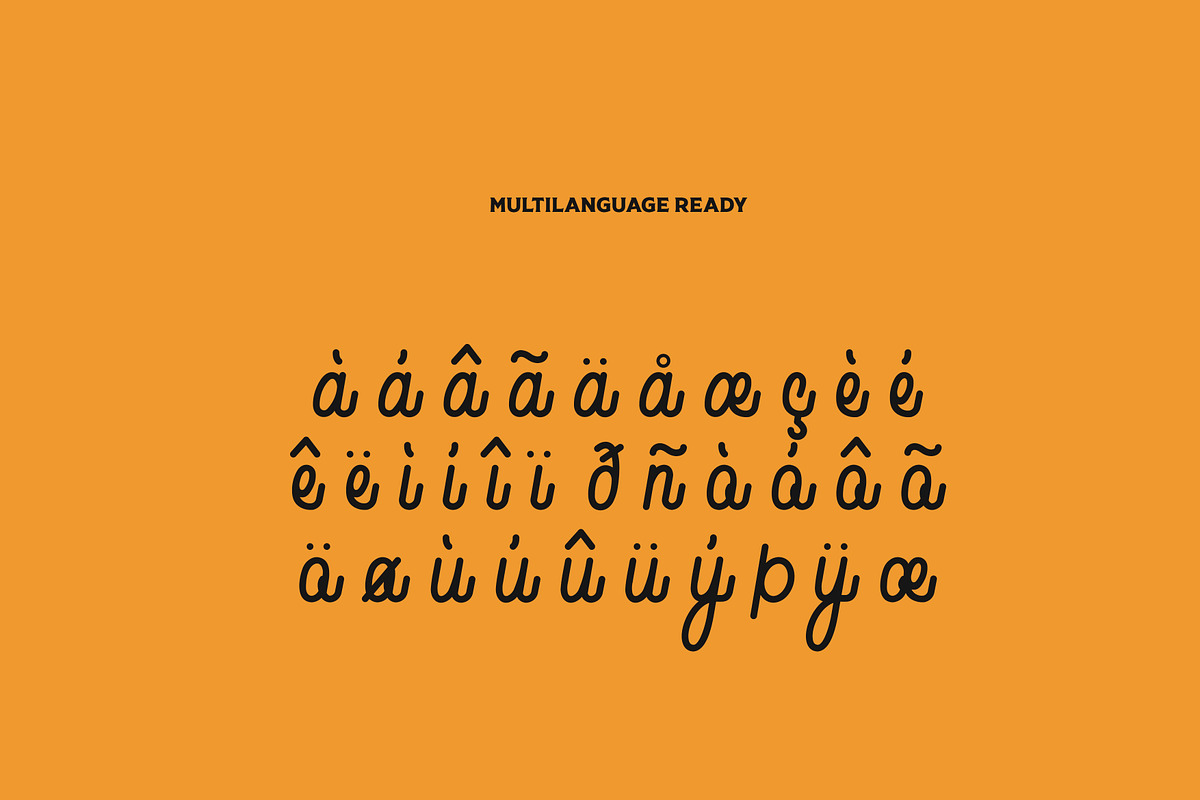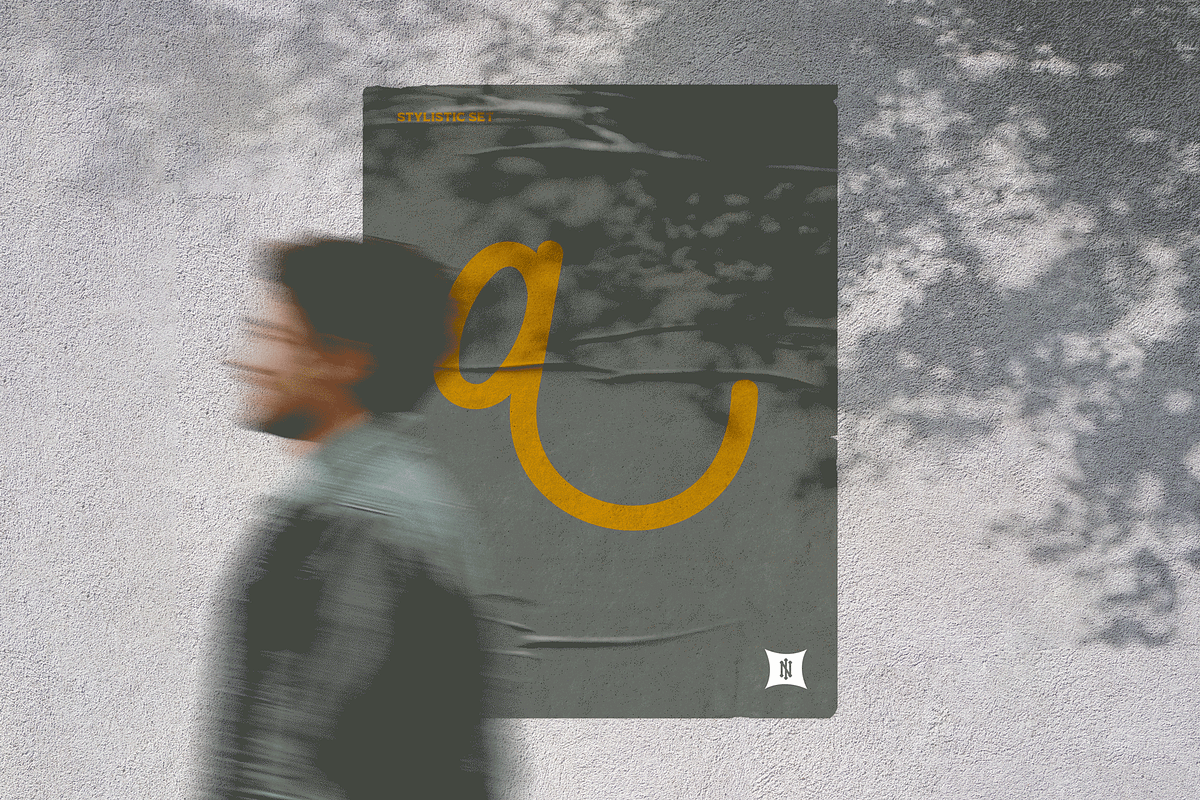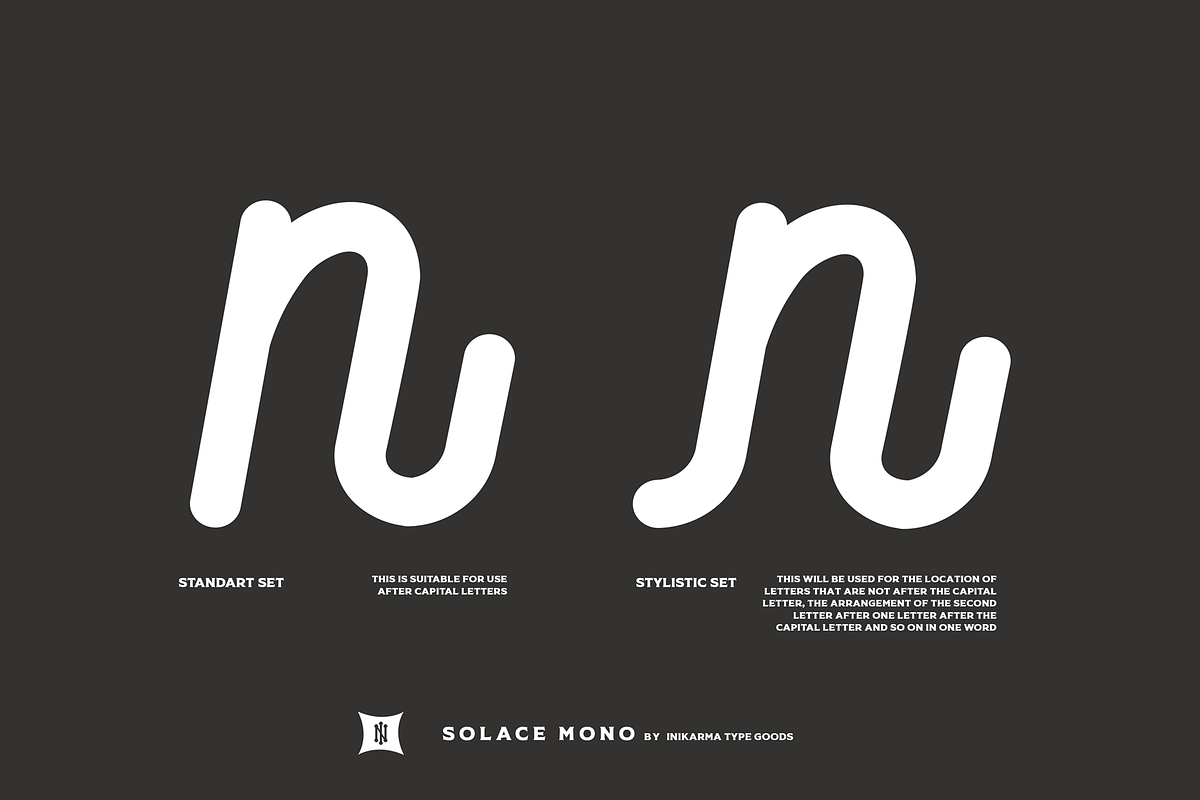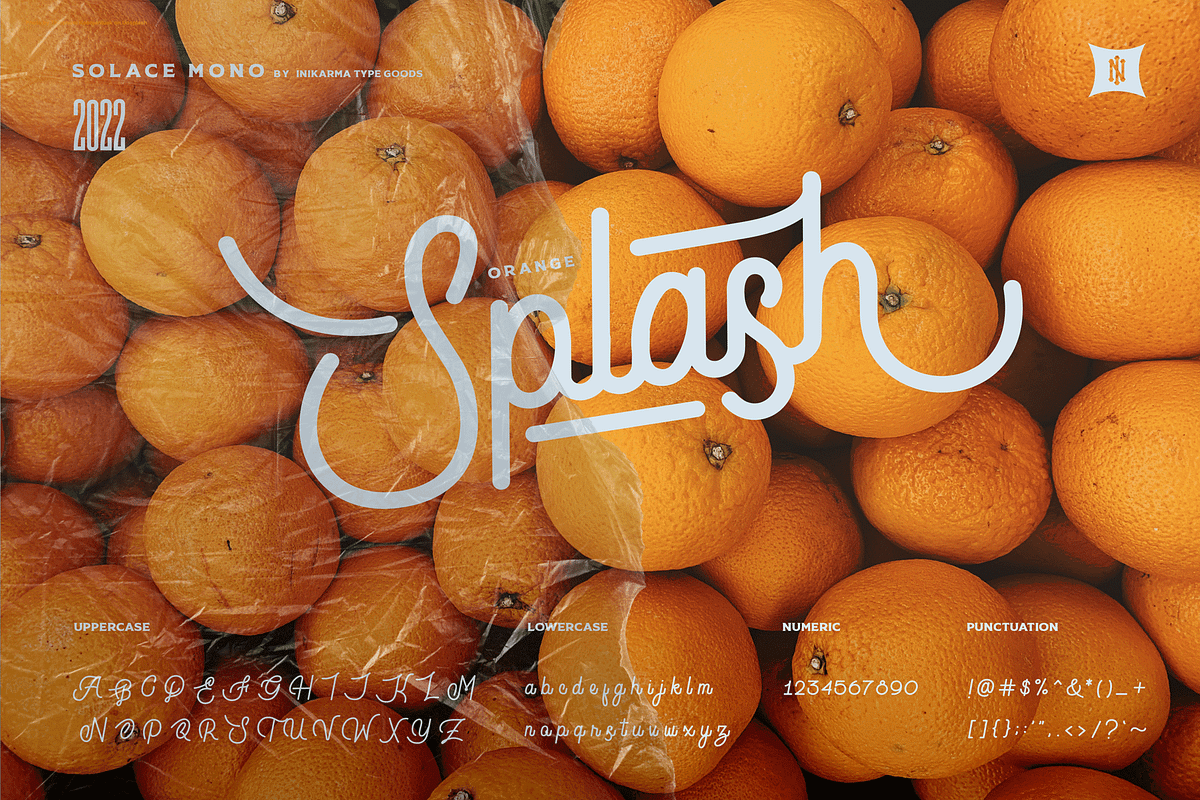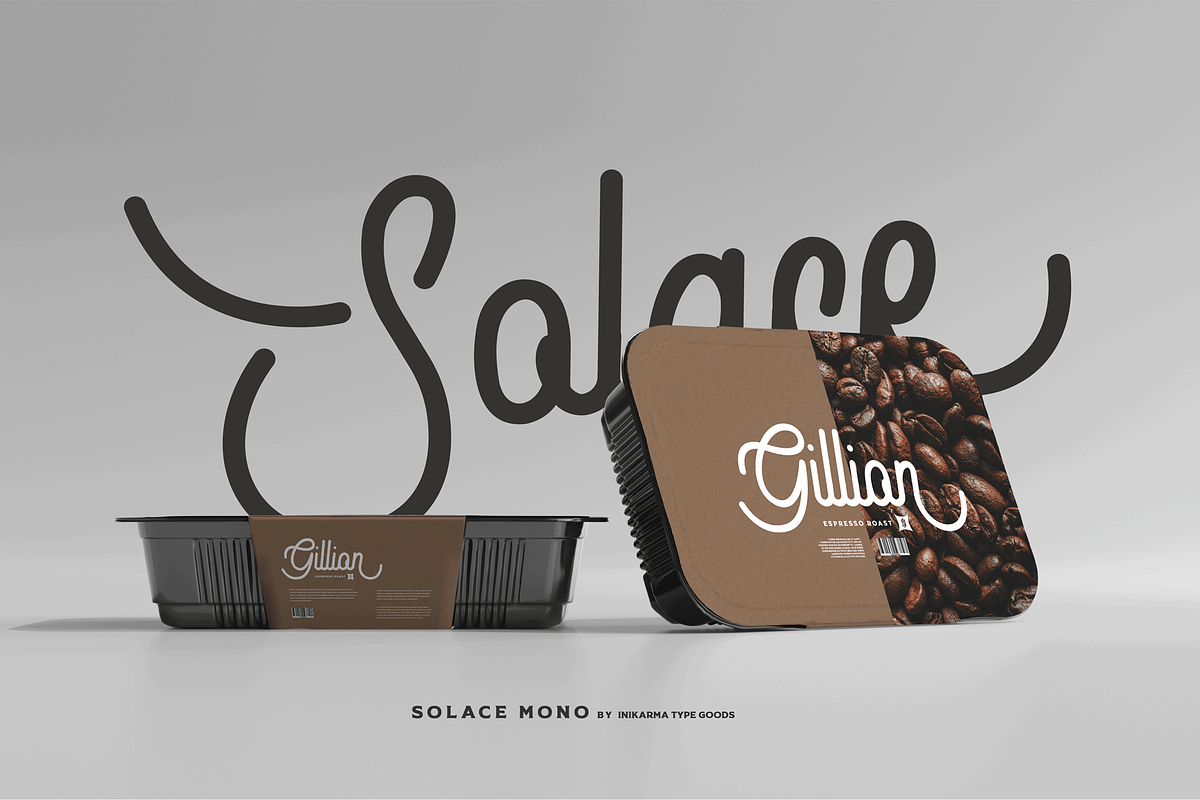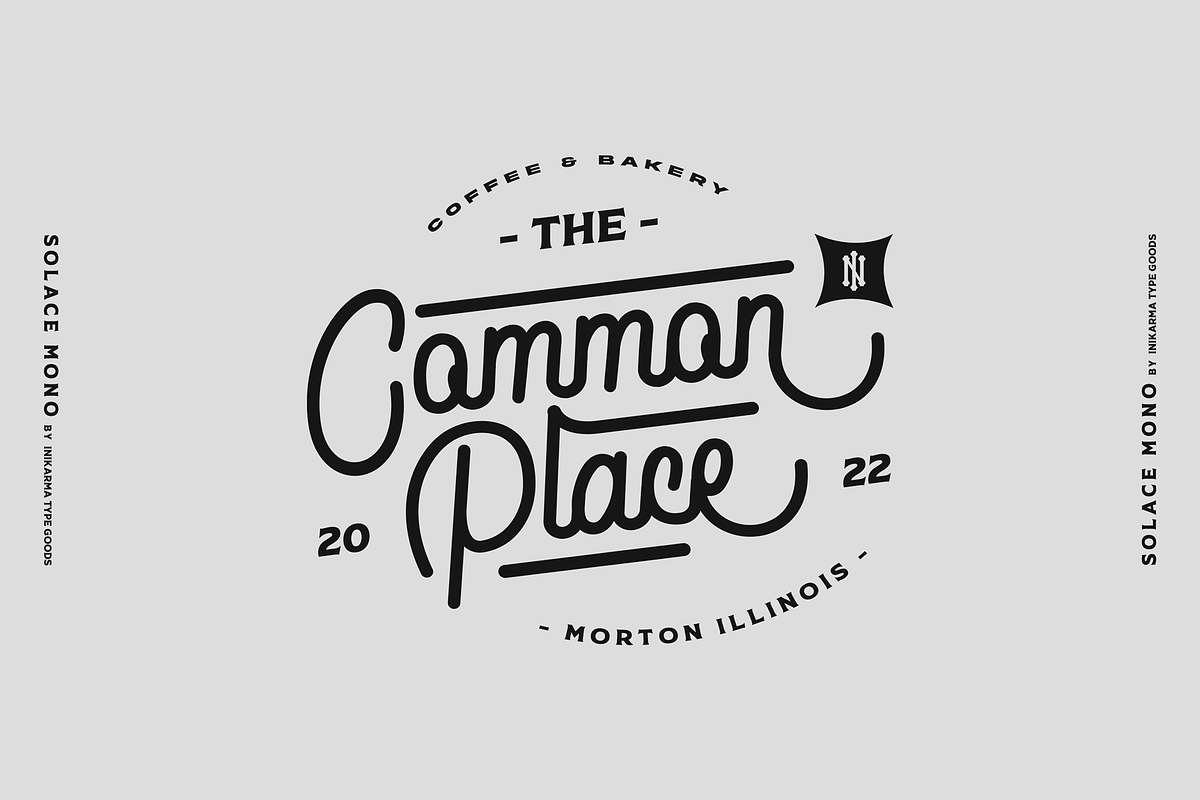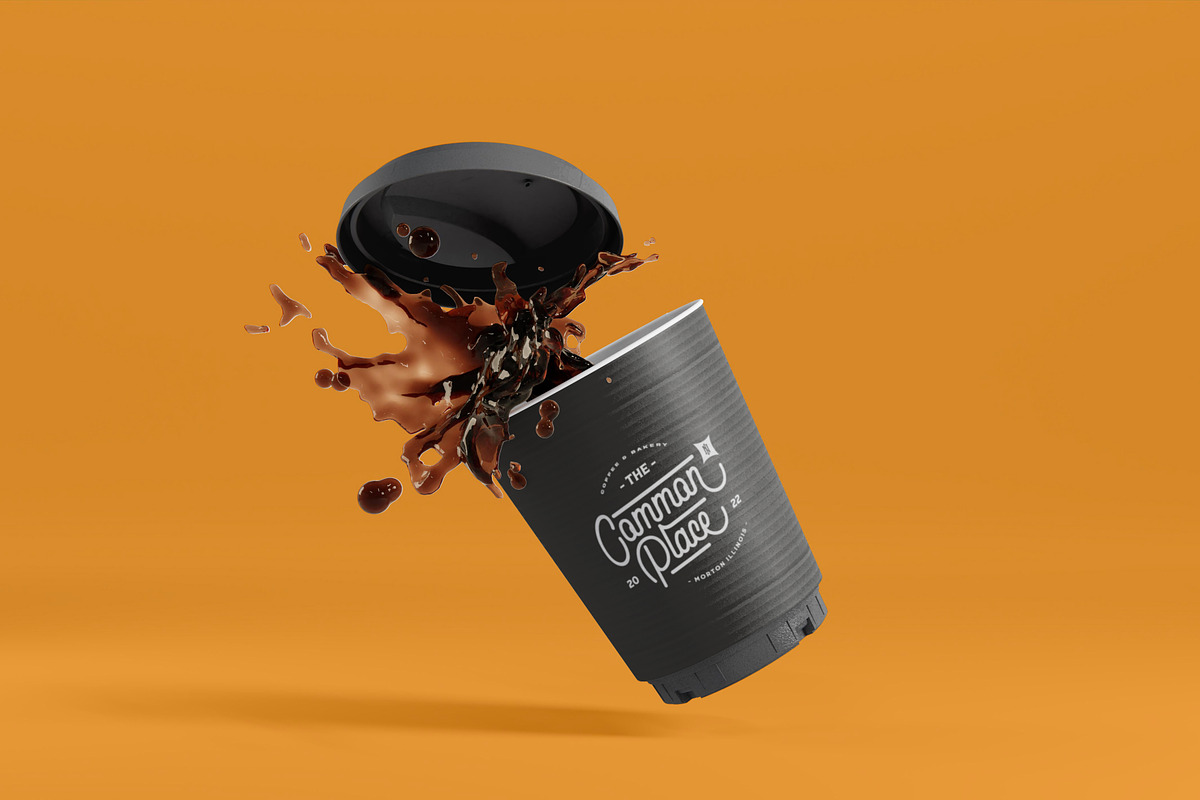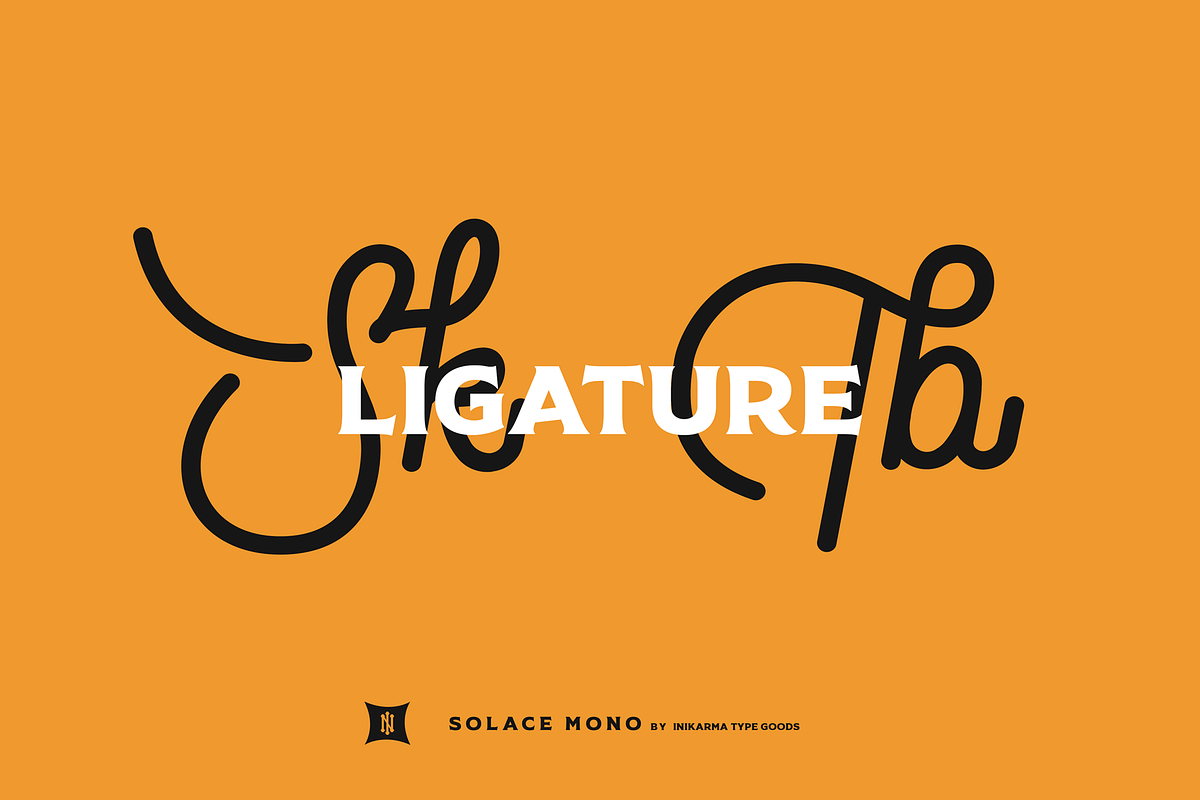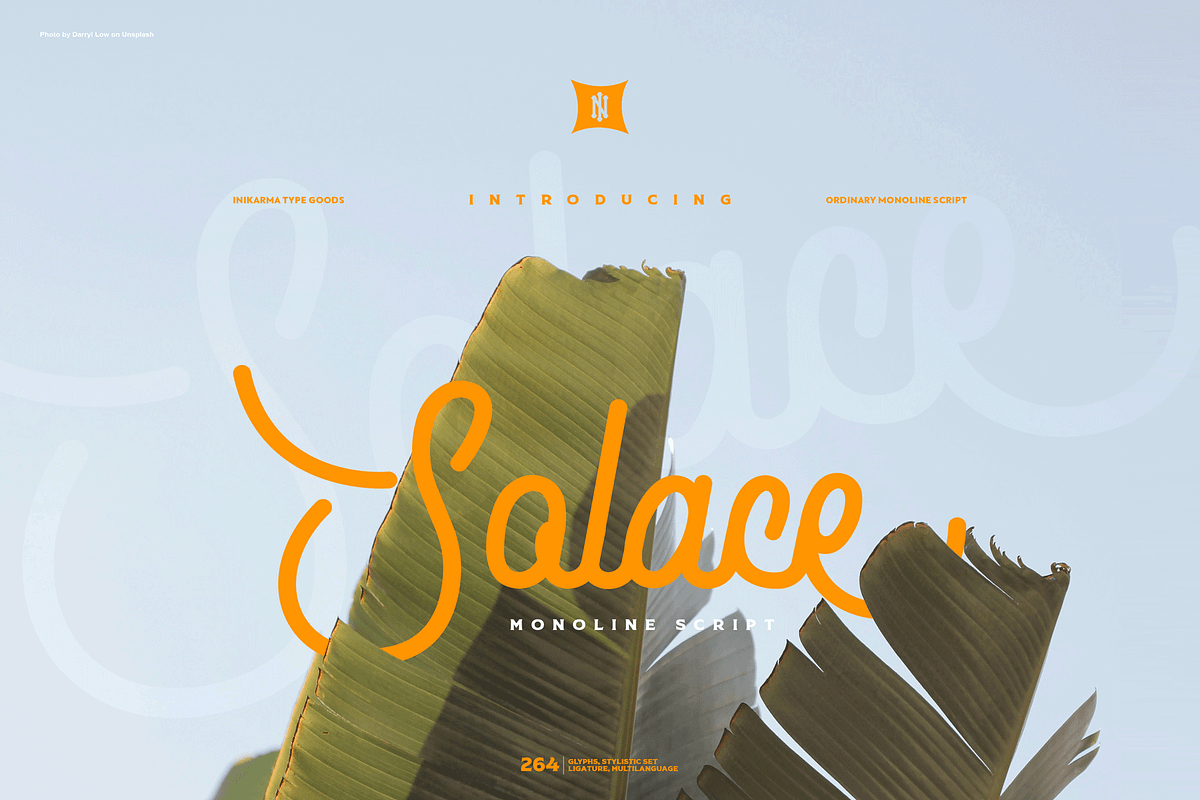
SOLACE MONO - Monoline Script
SOLACE MONO
Solace Mono is an ordinary monoline script font, technically this font is not used for writing a paragraph. This font is very maximally used for making a logo or title that stands above a few words for its use. Experimenting is the key in this font, there are stylistic sets and ligatures that will make it easier for you to experiment to get good results.
- 264 Glyph
- Punctuation and Marks
- Stylistic Set